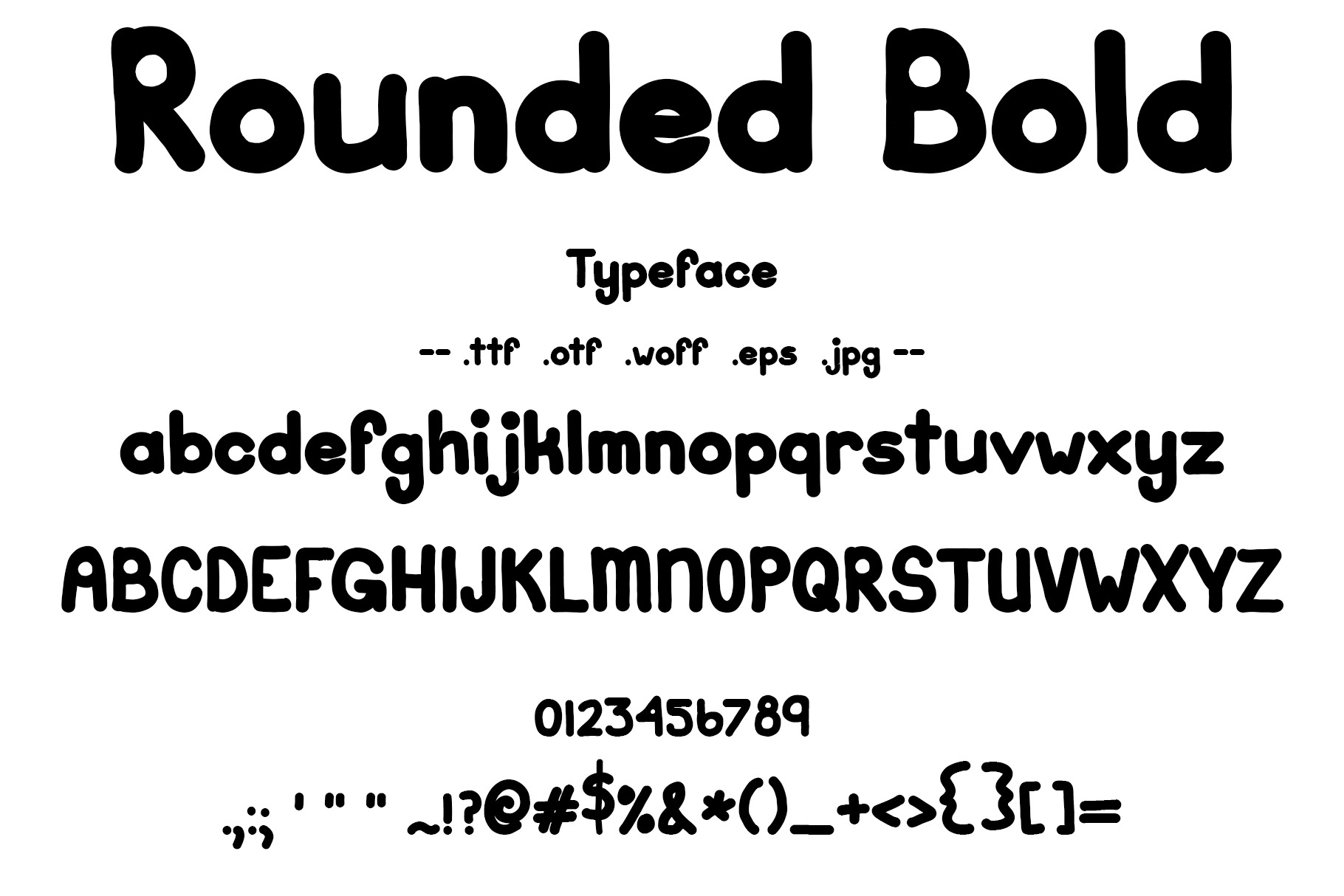
Font Rounded Bold Round Block Letter
Hand drawn font. Bold block letters create a striking round, thick character set. Give your projects some impact!